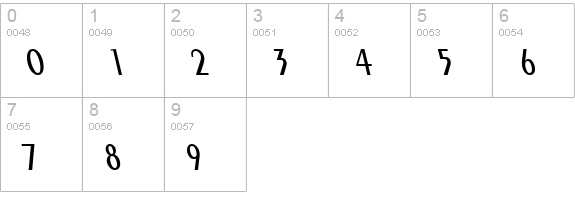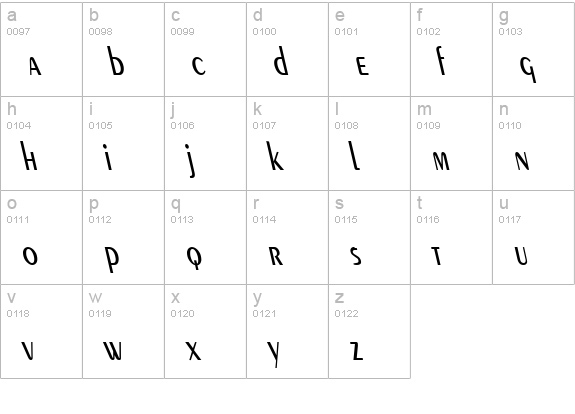
Pare Condensed Reverse Italic is a distinctive, condensed-width, italic variant in the Pare typeface family \xE2\x80\x94 well suited to design and typography projects.
Introducing Pare Condensed Reverse Italic font, a striking typeface that exudes elegance and sophistication. With its sleek and modern design, this font is perfect for adding a touch of refinement to any project. The unique reverse italic style of Pare Condensed Reverse Italic font adds a captivating twist to traditional typography. Its slanted and reversed letterforms create a sense of movement and intrigue, making it a standout choice for eye-catching headlines, titles, and logos. With its condensed proportions, Pare Condensed Reverse Italic font is ideal for situations where space is limited. Whether you're designing a sleek website, a minimalist poster, or a stylish branding project, this font will help you make a bold statement while conserving precious real estate. But what makes Pare Condensed Reverse Italic font even more appealing is that it is available for free. That's right, you can freely download this exquisite typeface at FontsMarket.com. This means that you have the opportunity to add a touch of sophistication to your designs without any financial barriers. So why wait? Discover the sleek and captivating world of Pare Condensed Reverse Italic font today. Download it for free at FontsMarket.com and start creating stunning designs that will leave a lasting impression.